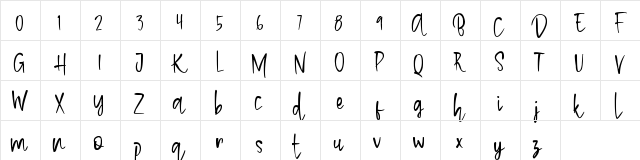
Panacota Regular
Design Context for Panacota Typeface
Panacota is a composed and adaptable typeface that performs quietly and consistently across a wide range of design contexts.